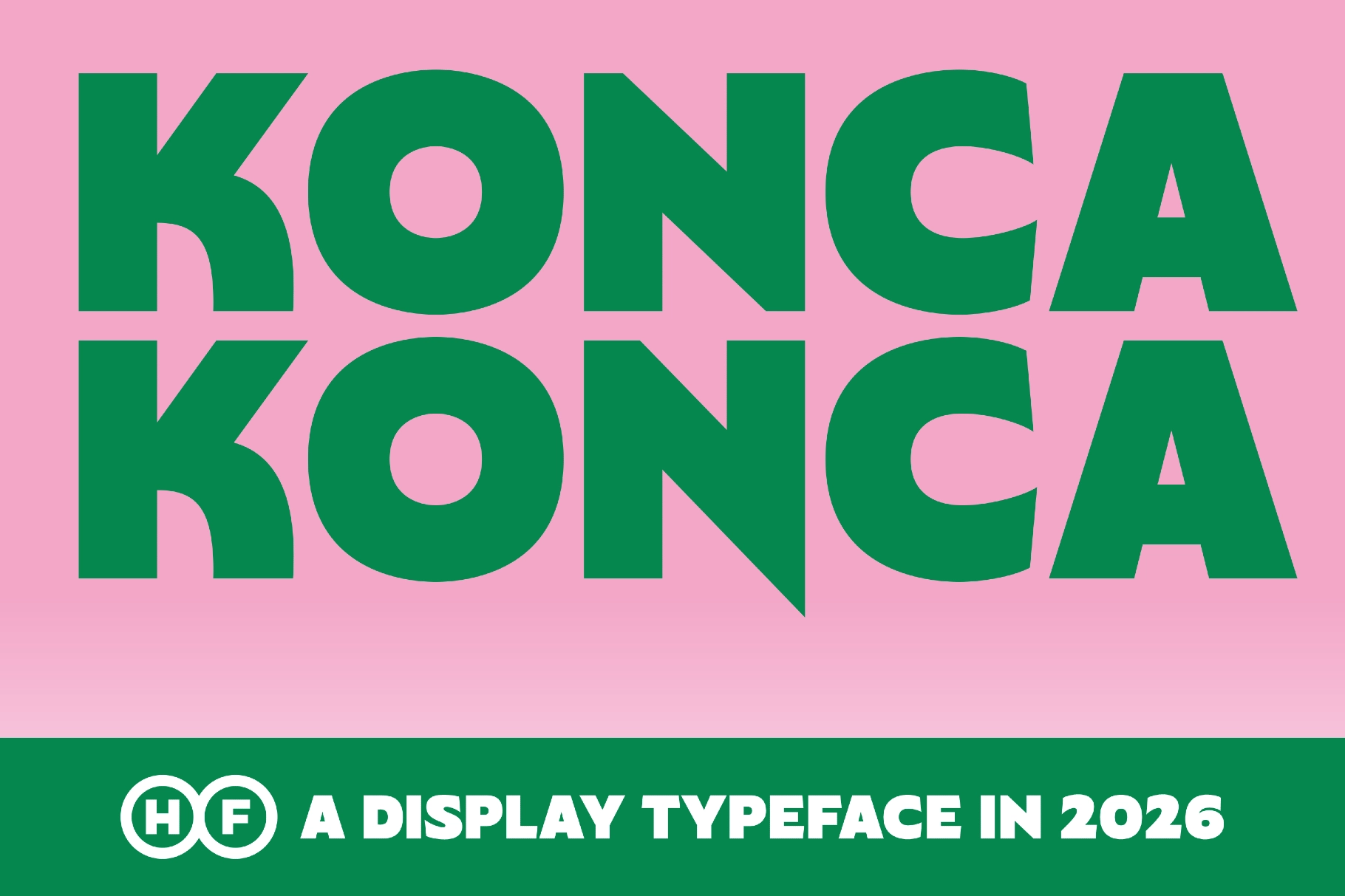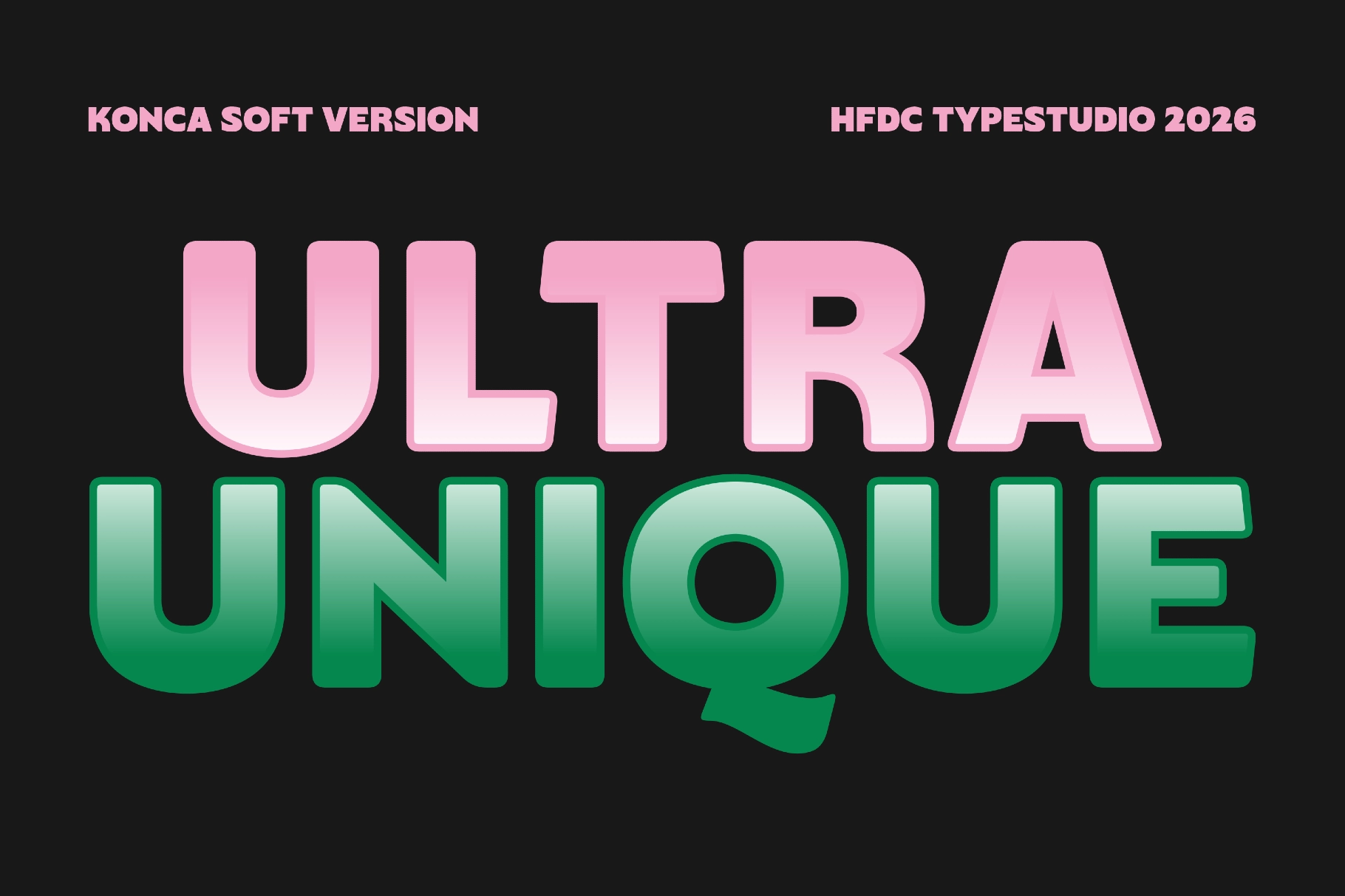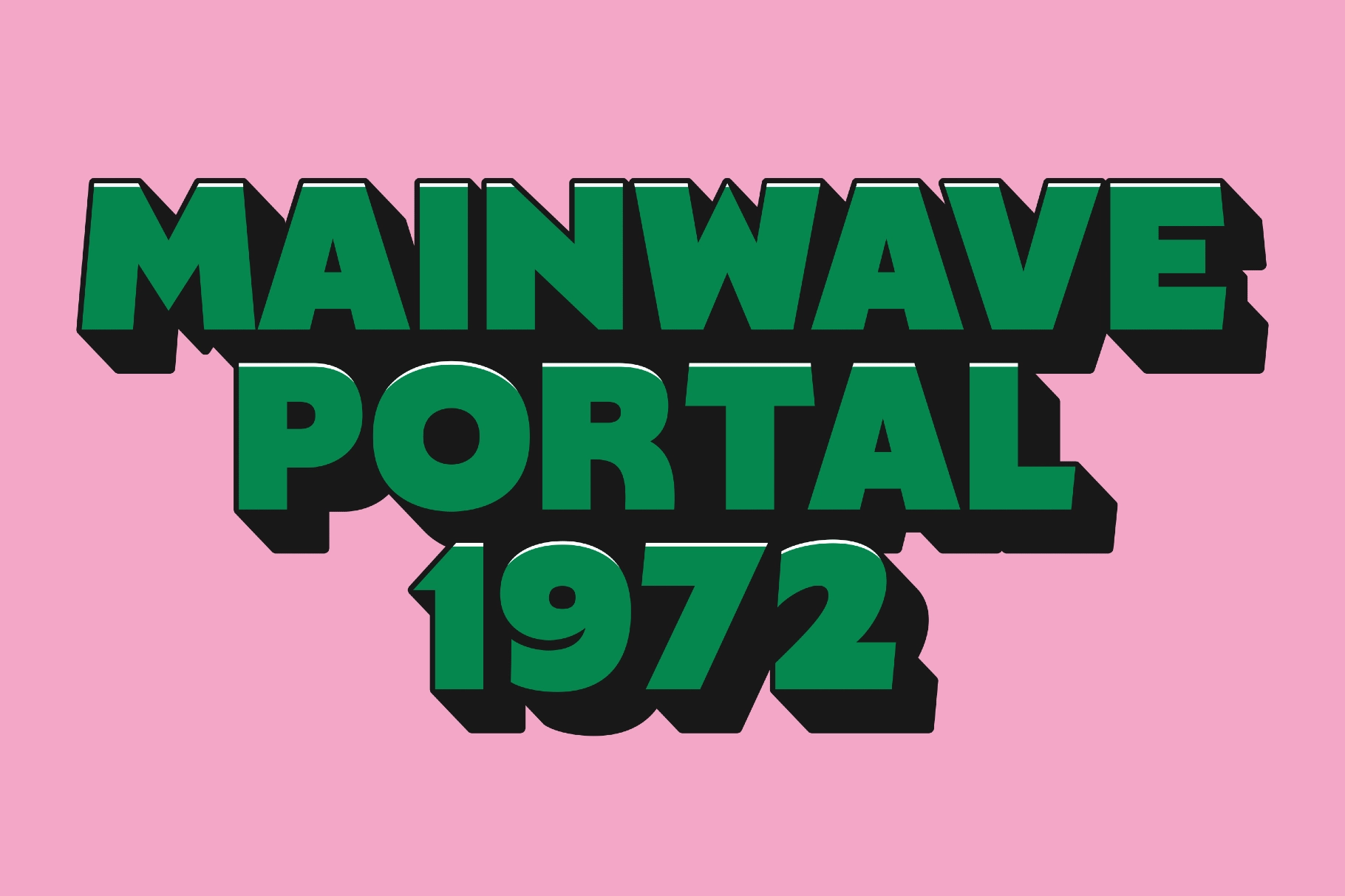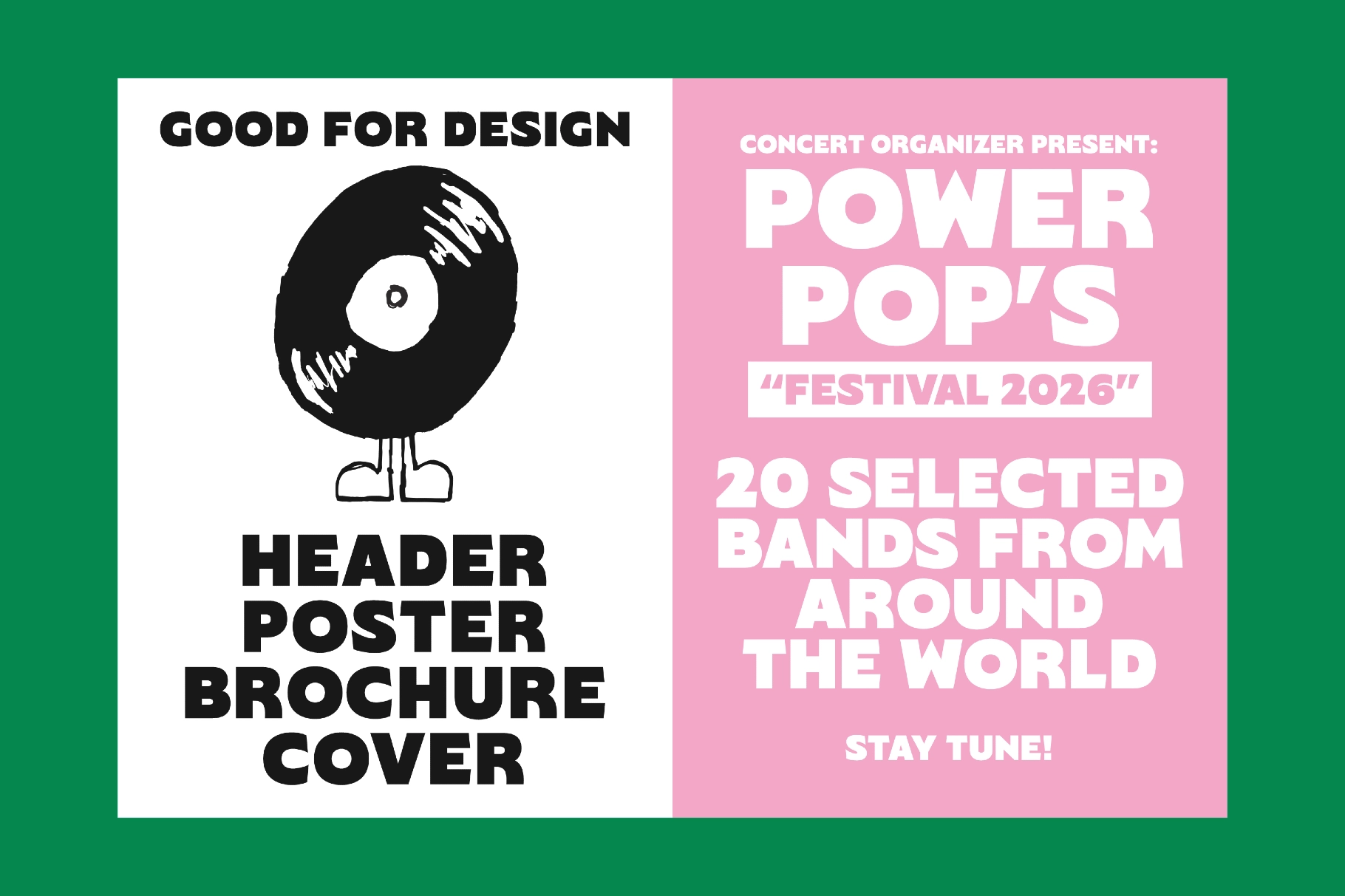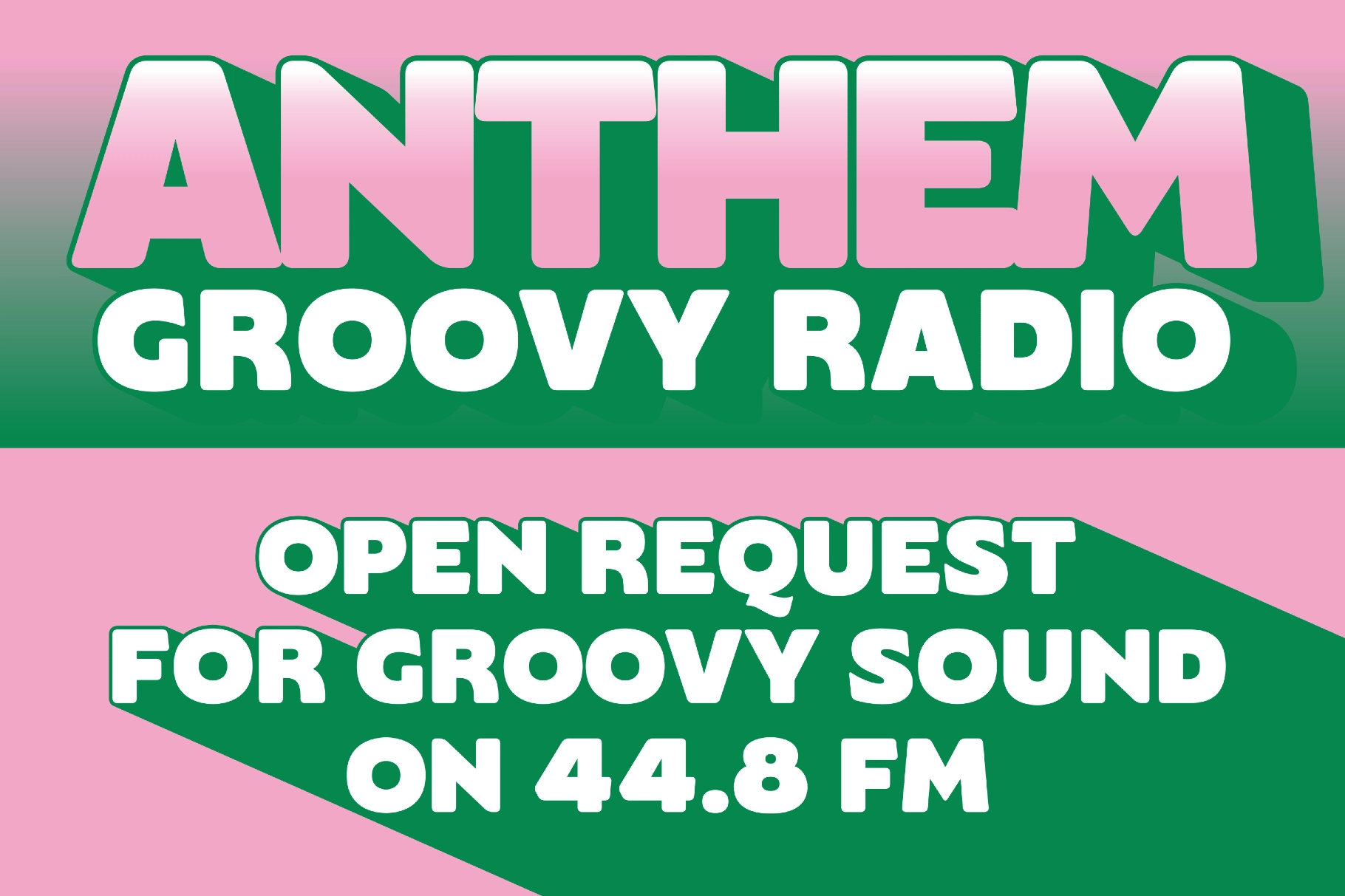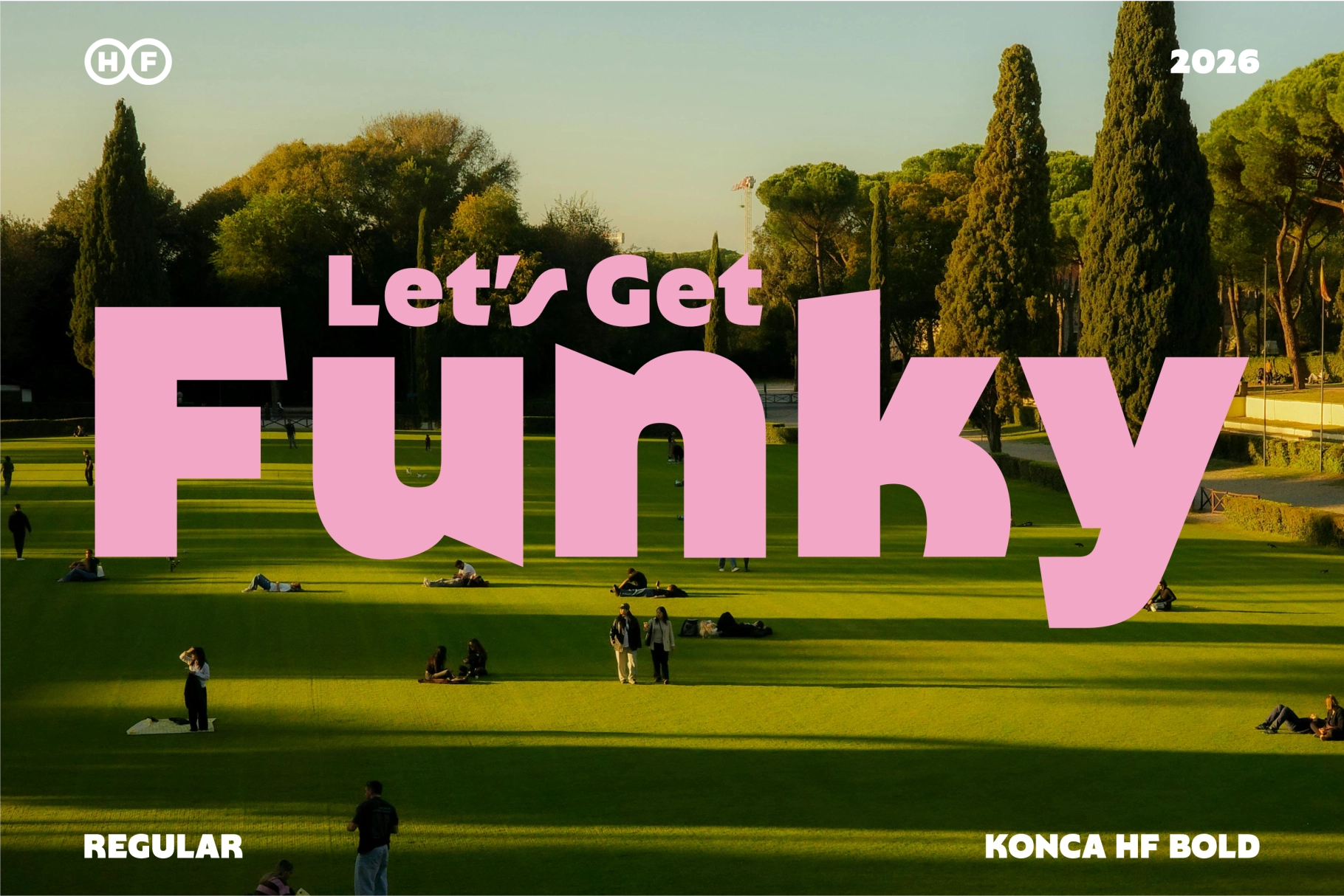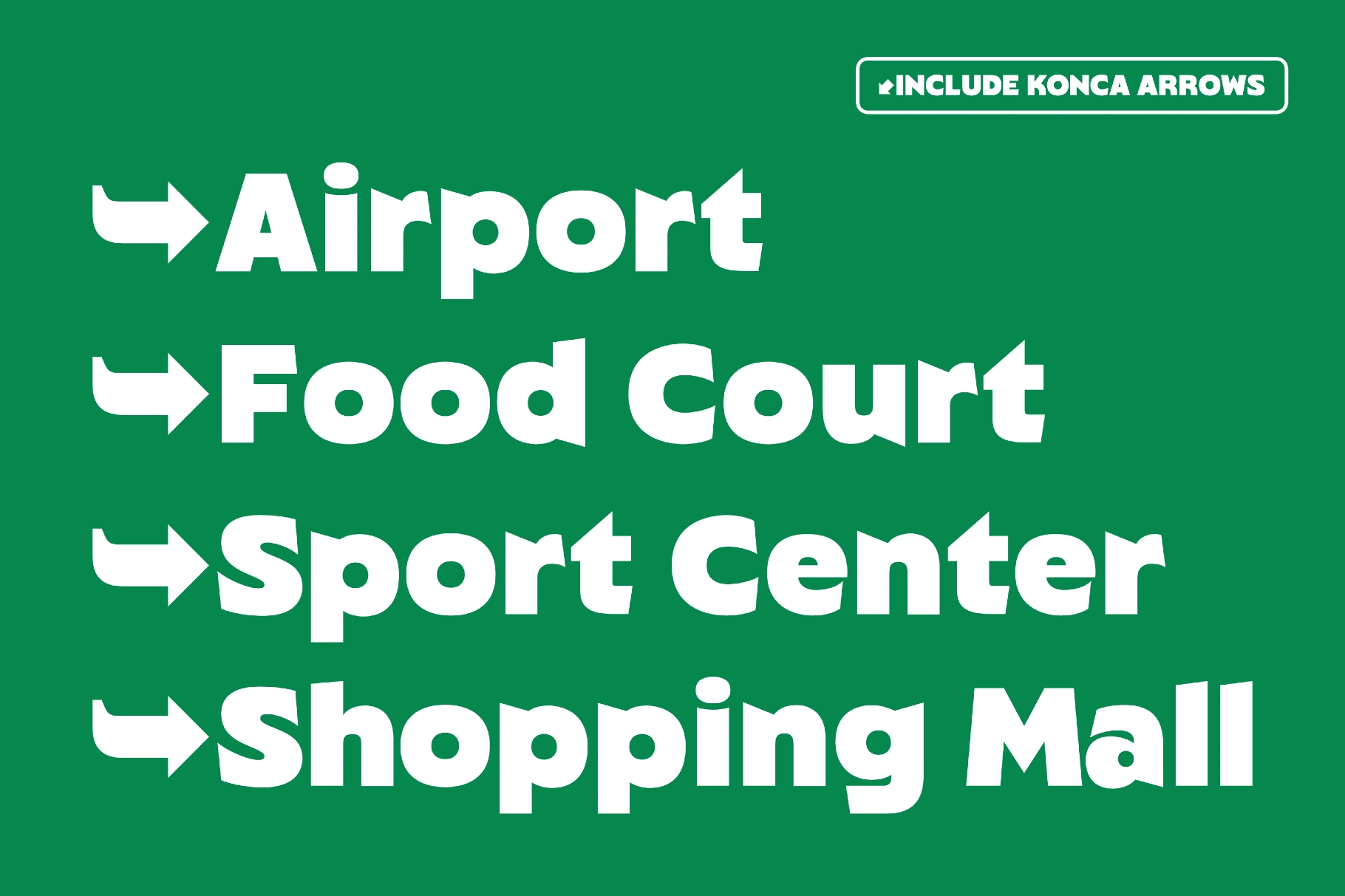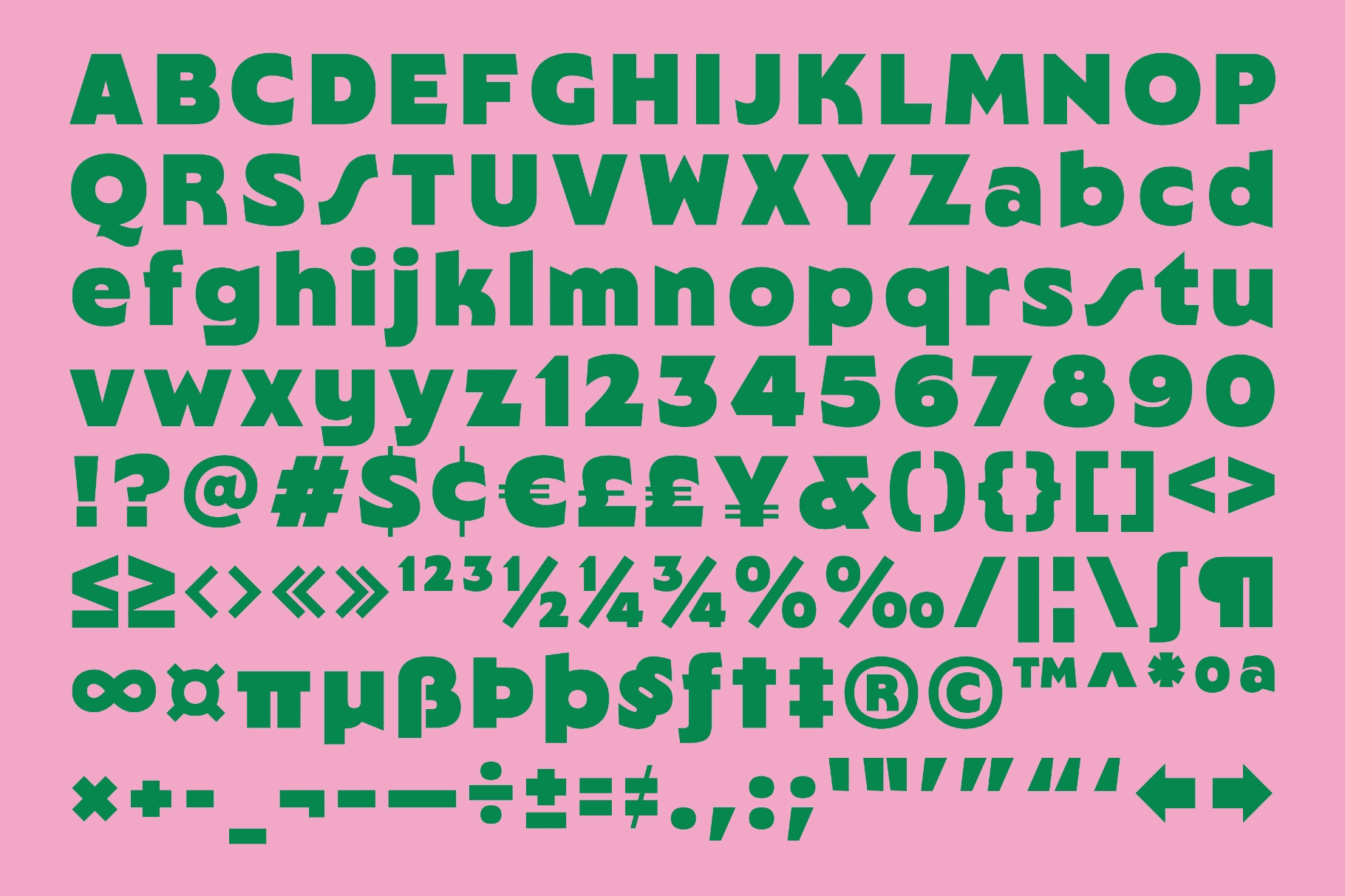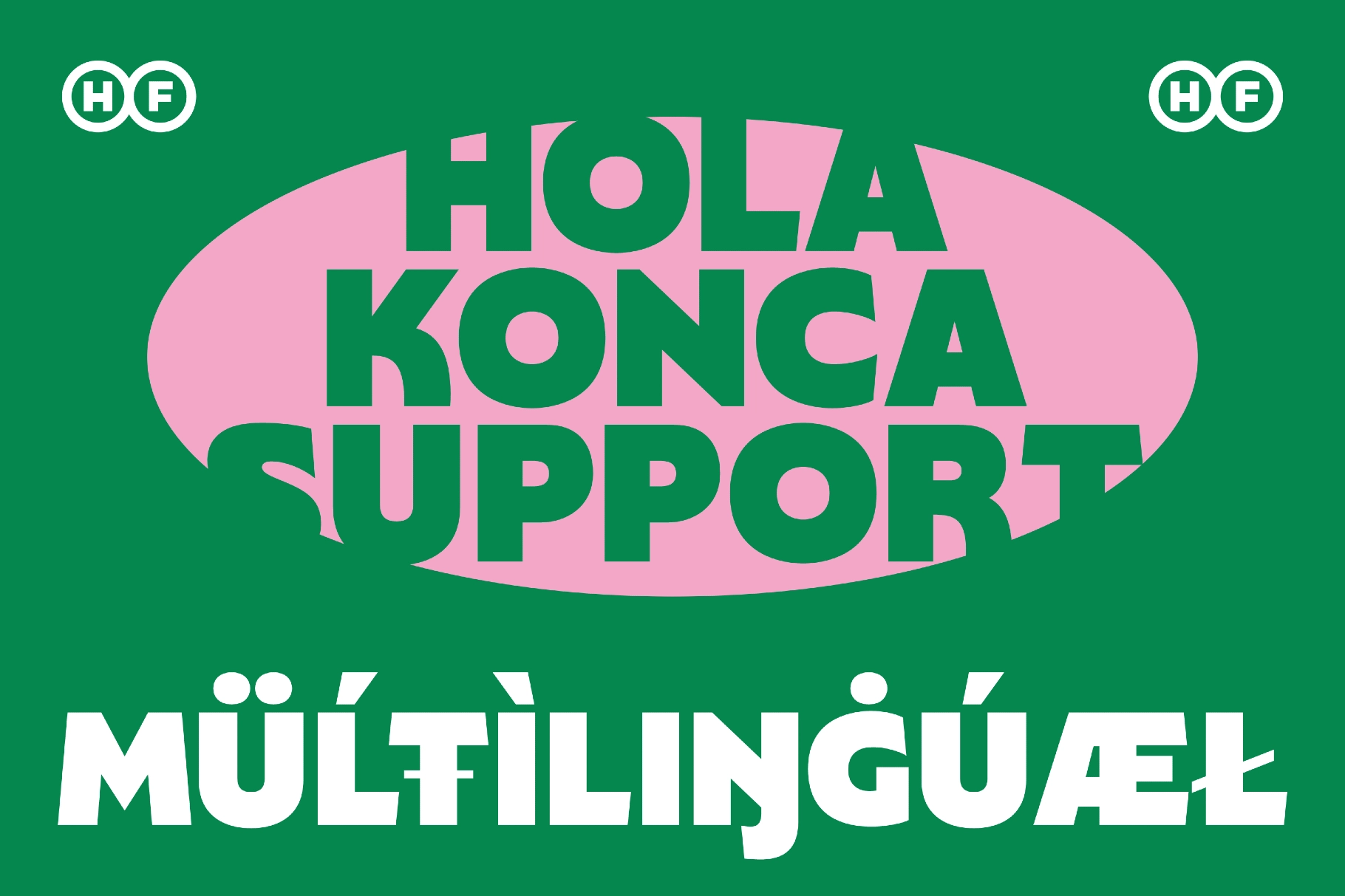
Konca HF - Bold Retro Display Font Duo
Konca HF stacks heavy, block-built strokes into a bold grotesque display font, with stylistic alternates on the N, S, s, and y that carry a raw, hand-cut vintage edge. The Soft companion rounds off those same corners, trading the sharp cuts for a friendlier, bubbled finish without losing the weight.
Both cuts hold their punch at poster scale and shrink cleanly into logo lockups and packaging call-outs, so a single family covers loud and friendly registers side by side. Use it for gig posters, streetwear branding, packaging headers, retro logos, and social graphics.
• 2 styles: Regular, Soft;
• uppercase & lowercase;
• numerals, punctuation & symbols;
• ligatures, stylistic alternates, fractions, ordinals, superscript;
• 450+ glyphs total